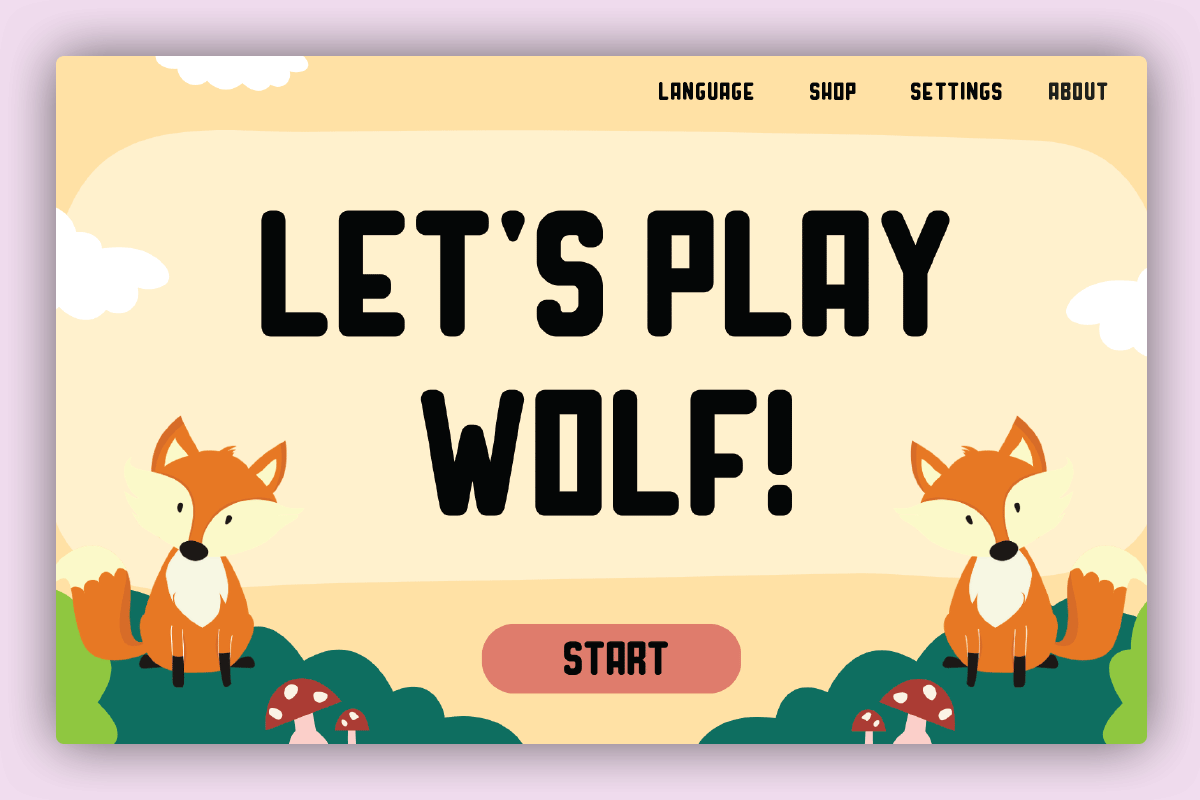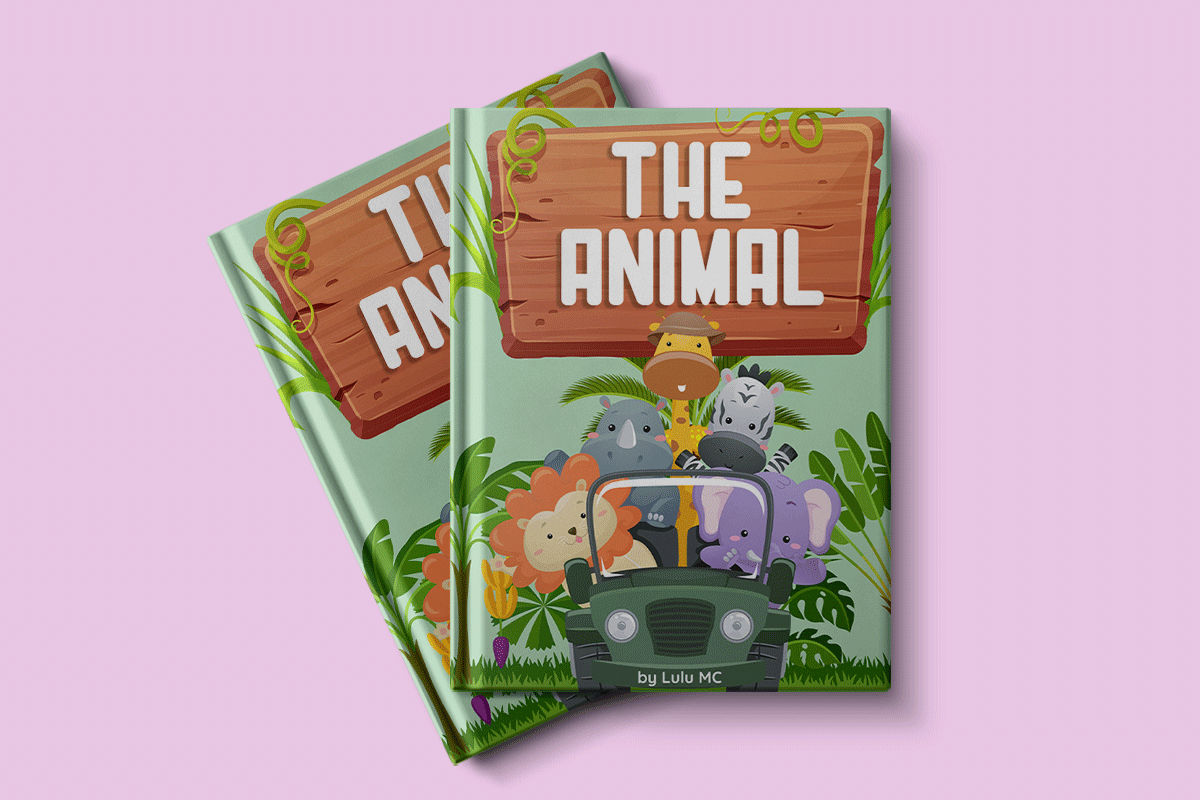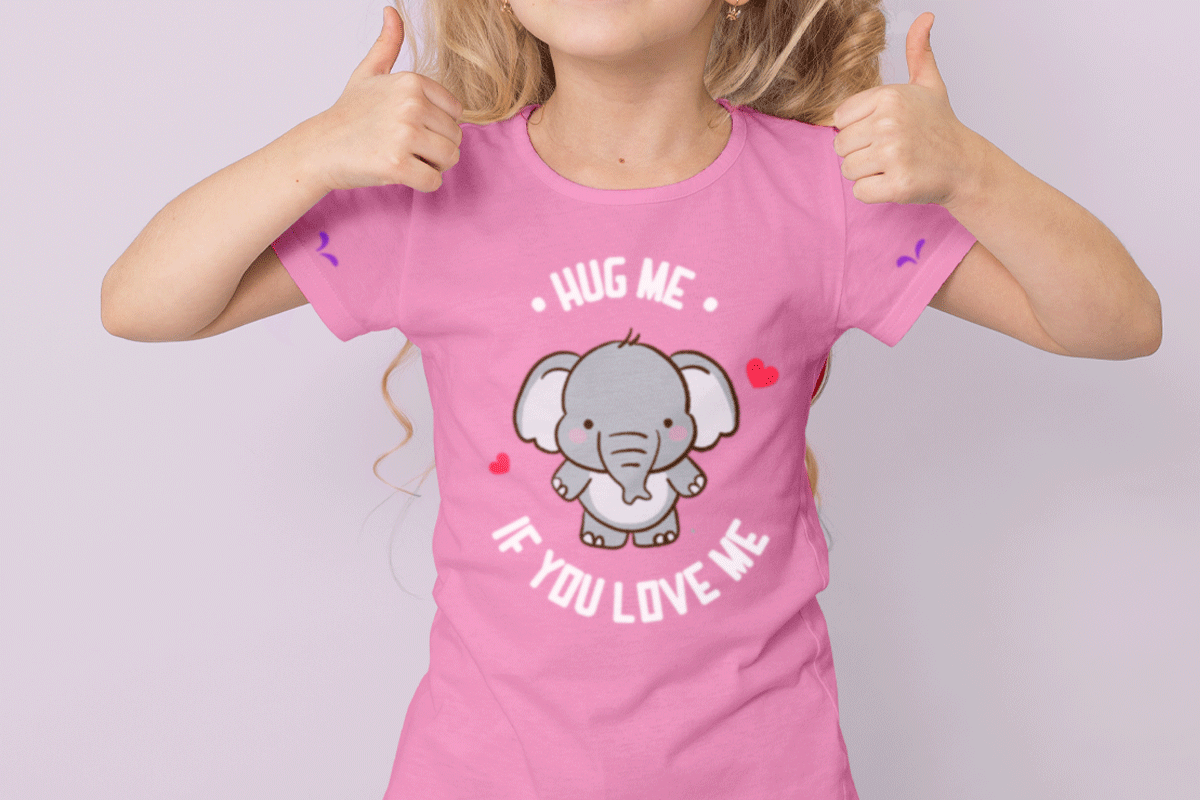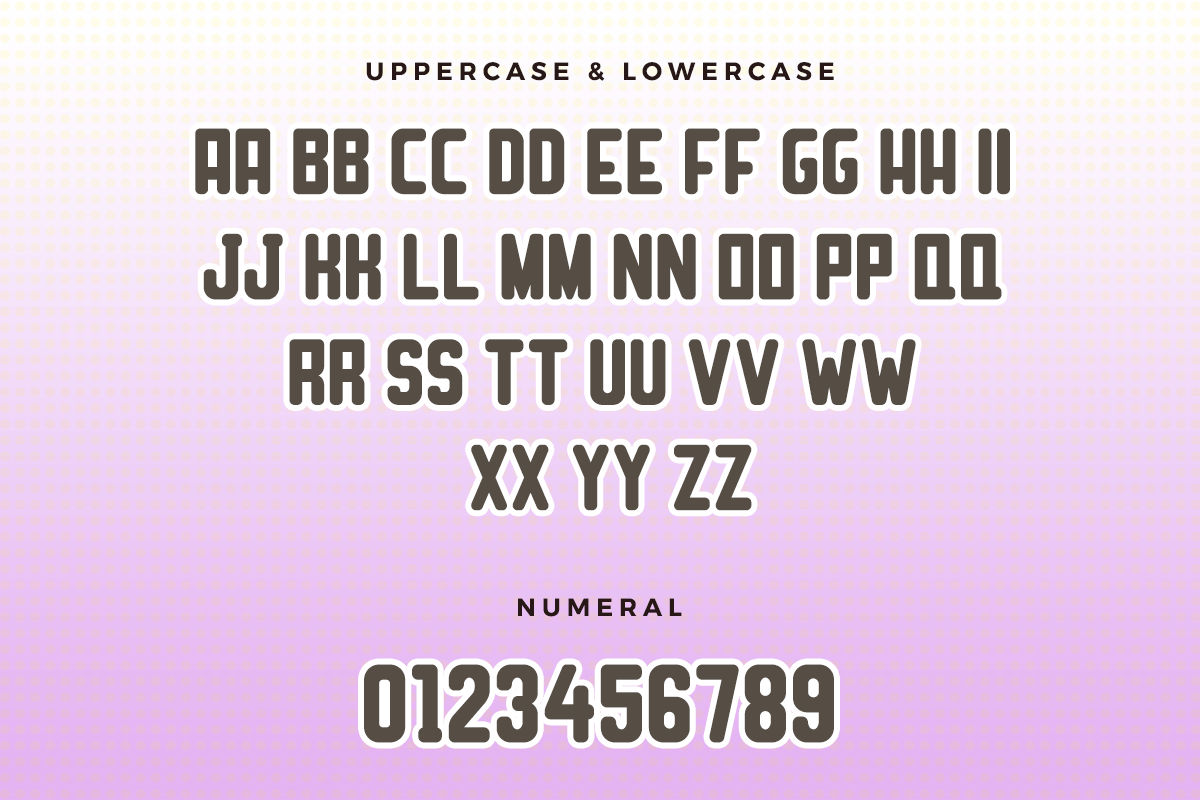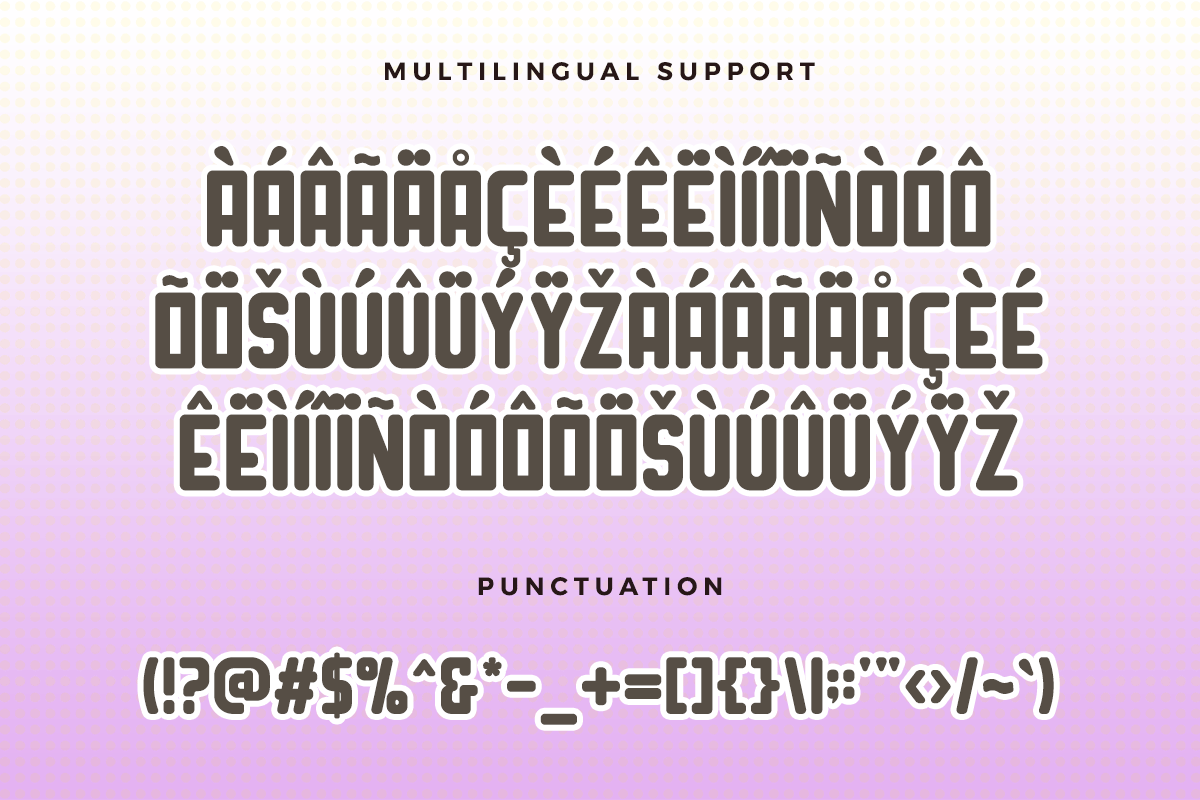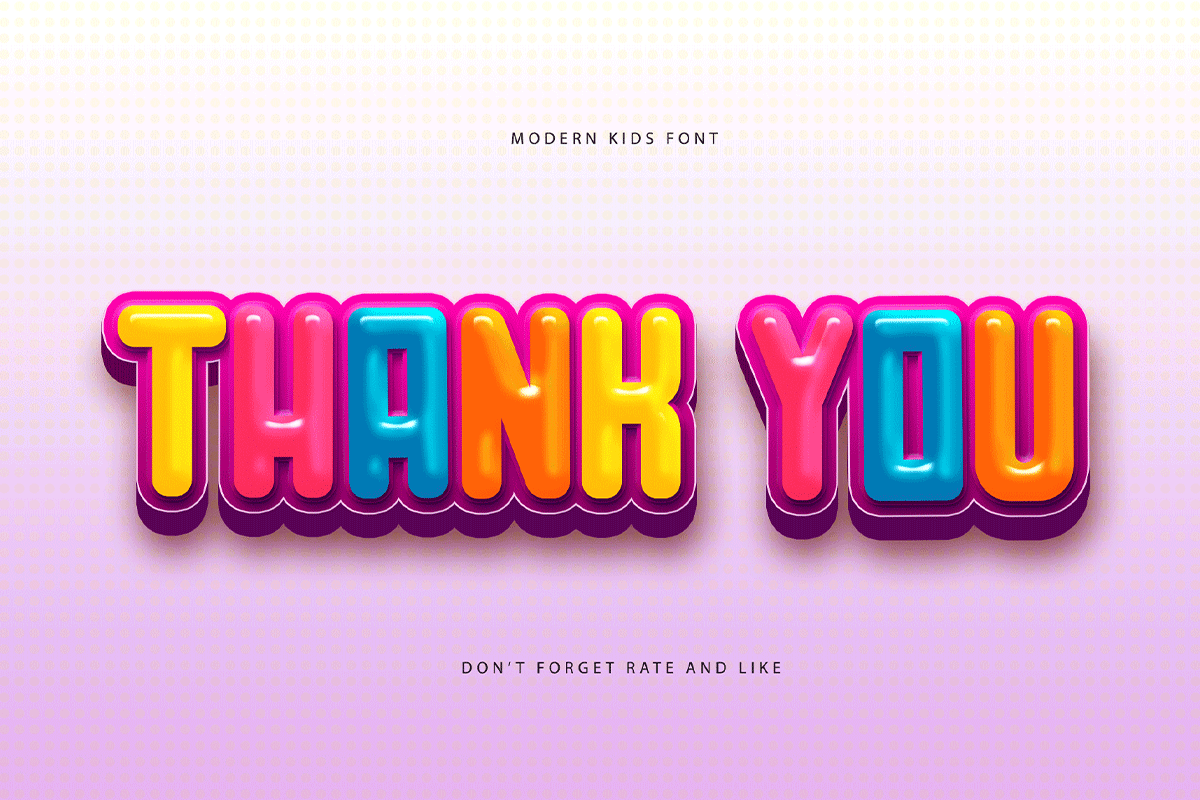
Cheerfull Modern Kids Font was created to present a simple and cute font to anyone who sees it. This is in line with the characteristics of the letters in the Cheerfull Modern Kids Font which show that there is no additional part of the letters and has a voluminous shape in several parts. People who read this variety of typefaces do not have to try very hard to read and understand them. This right is because Cheerfull Modern Kids Font is a legible font. It is suitable for use as a digital font or print font. By its appearance, Cheerfull Modern Kids Font is very suitable for use in a variety of children's equipment, such as screen printing on clothes/t-shirts, bags, and picture book covers. This font is also very suitable when used for advertising promotions for children's products and discount boards. This type of font can be printed in small or large font sizes and still looks good when viewed from close or far. For those who want to make products with the aim of the market is children, Cheerfull Modern Kids Font will be a very appropriate choice. How simple and funny are very identical and attached to it. Our Display fonts collection is compatible to use as Figma fonts, Canva fonts, Freepik Fonts, and Adobe Fonts. They also work as Windows Fonts and Apple Fonts. For your social media needs, you can use and install fonts in our collection of Espot & Futuristic font types to use as Instagram Fonts, Facebook Fonts, and Twitter Fonts.